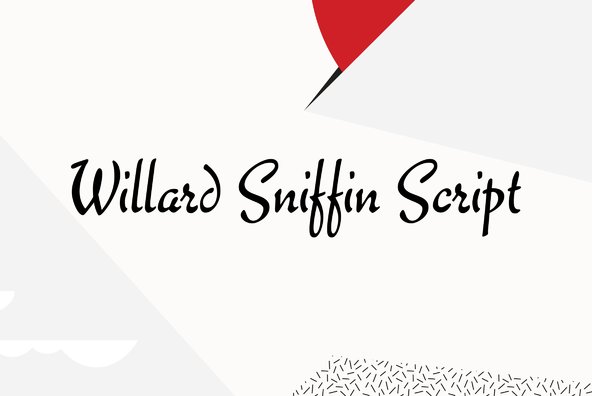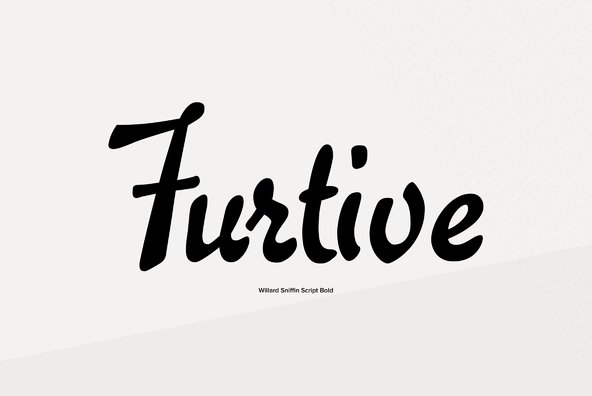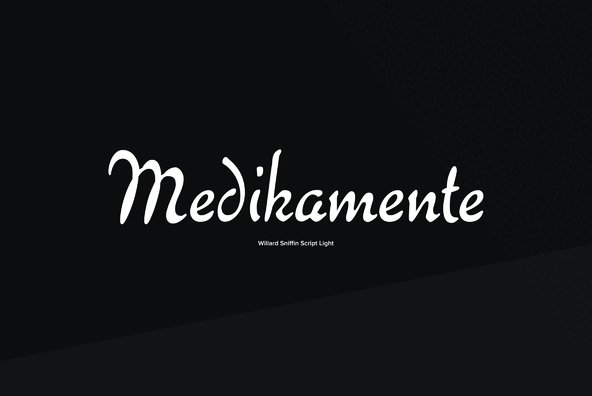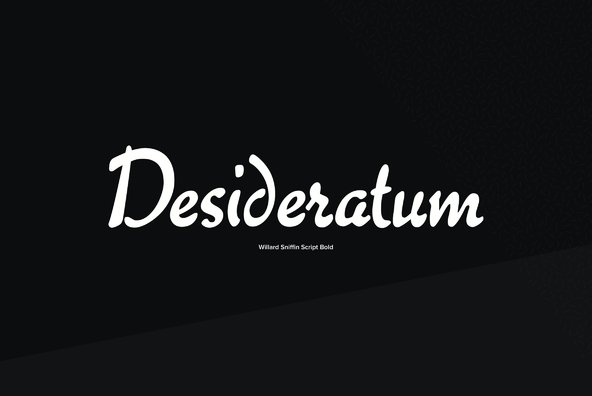
Designed by Willard T. Sniffin. Digitally engineered by Steve Jackaman. Based on the original Willard T. Sniffin design of 1933 for ATF, this informal brush script was known as Keynote.